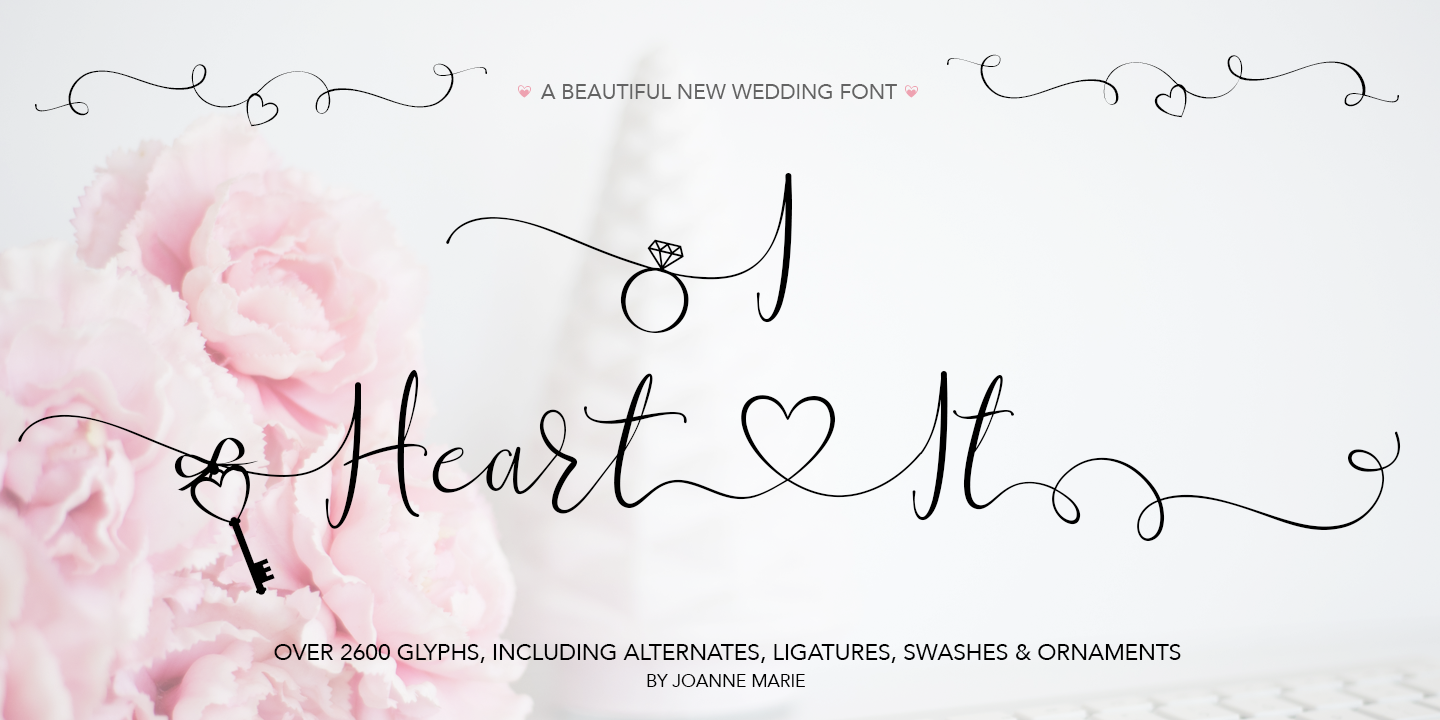
Add sweetness and charm to your designs with I Heart It Font Free Download. This delightful handwritten typeface features playful strokes, heart-themed accents, and a warm, personal style—perfect for love notes, wedding invitations, greeting cards, children’s designs, and romantic branding. I Heart It Font Free Download captures a sense of affection and whimsy that instantly connects with the viewer.
The friendly, casual flow of I Heart It Font makes it an excellent choice for headlines, quotes, and decorative elements. Whether you’re creating social media content, personalized gifts, or dreamy stationery, this font brings a heartfelt and joyful vibe to any project.